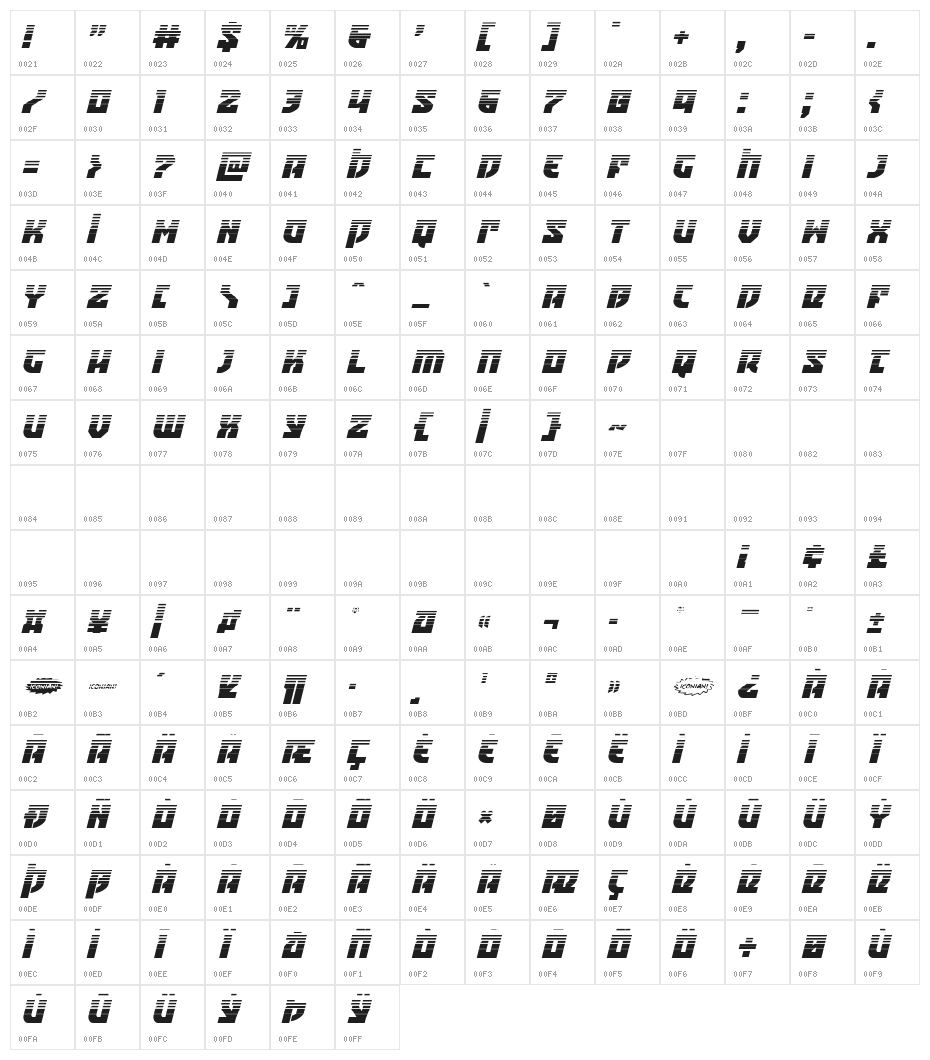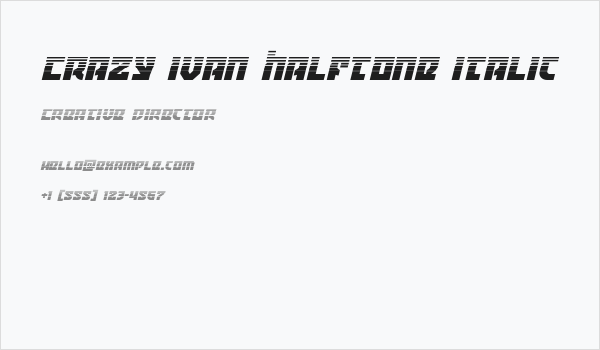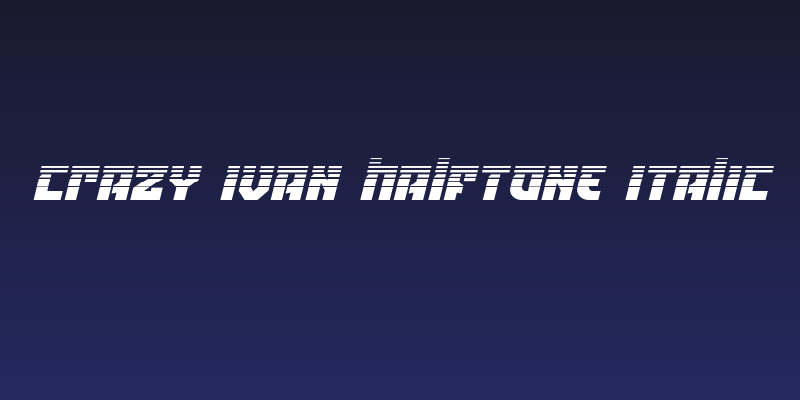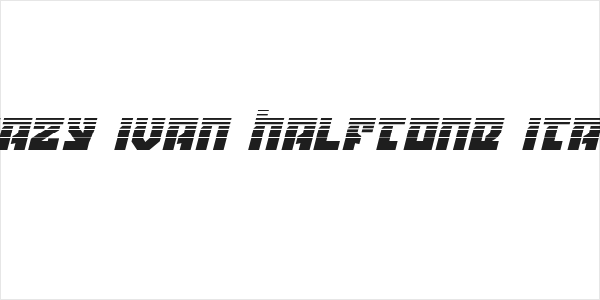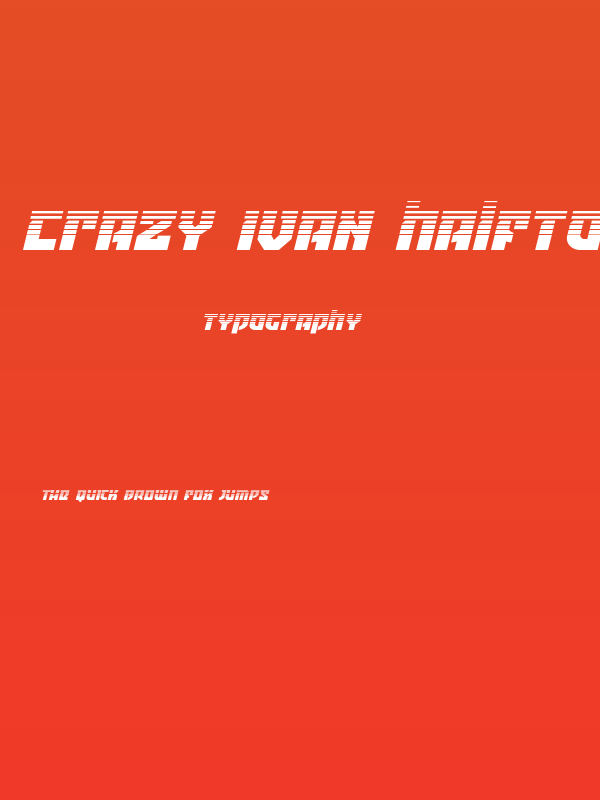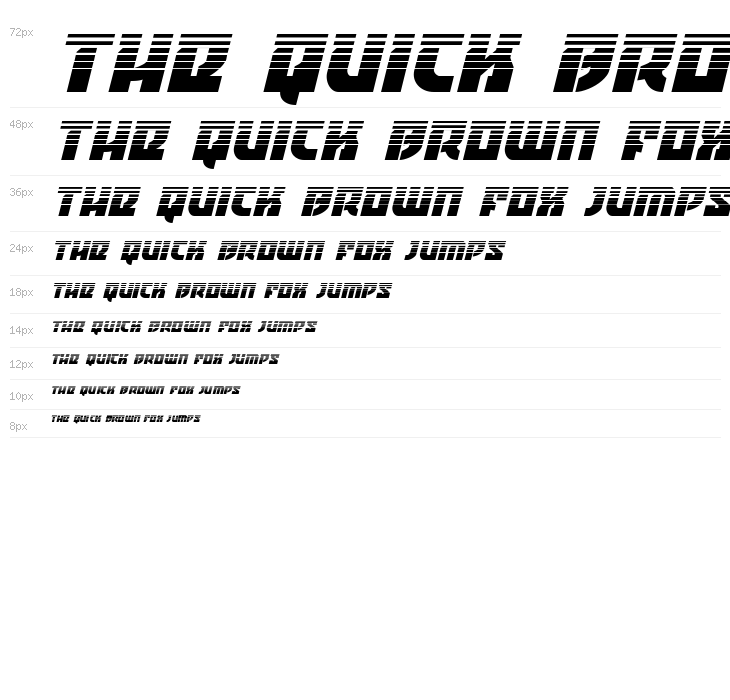
Crazy Ivan Halftone Italic Font
Crazy Ivan Halftone Italic Description
This font features a bold, italicized style with a unique halftone effect that gives it a dynamic and futuristic appearance. The characters are designed with horizontal stripes that create a sense of movement and energy. The uppercase and lowercase letters maintain a consistent style, with sharp angles and a slightly condensed form. The numbers and special characters follow the same design principles, ensuring uniformity across the entire typeface. This font is ideal for projects that require a modern and edgy look, such as technology branding, sports team logos, or sci-fi themed designs.
| Use Case | Logos, Headlines |
| Proposed Projects | Ideal for technology branding, sports logos, sci-fi themes, and edgy graphic designs. |